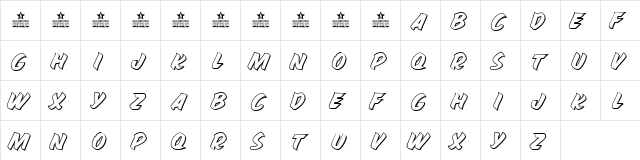
PROPAGANDA SIGHT SHADOW PERSONA Regular
| Designer | Billy Argel |
Design Context for PROPAGANDA SIGHT SHADOW PERSONA Typeface
PROPAGANDA SIGHT SHADOW PERSONA brings ornamental detail and strong personality to headlines and identities, where visual impact matters more than quiet functionality.
Font Pairing: Pair with a clean neutral sans-serif for body copy to let PROPAGANDA SIGHT SHADOW PERSONA's character lead without overwhelming the composition.
Pro Tip: Use PROPAGANDA SIGHT SHADOW PERSONA exclusively at display sizes — it was designed to be seen, not read at length. Let a neutral companion handle body copy.